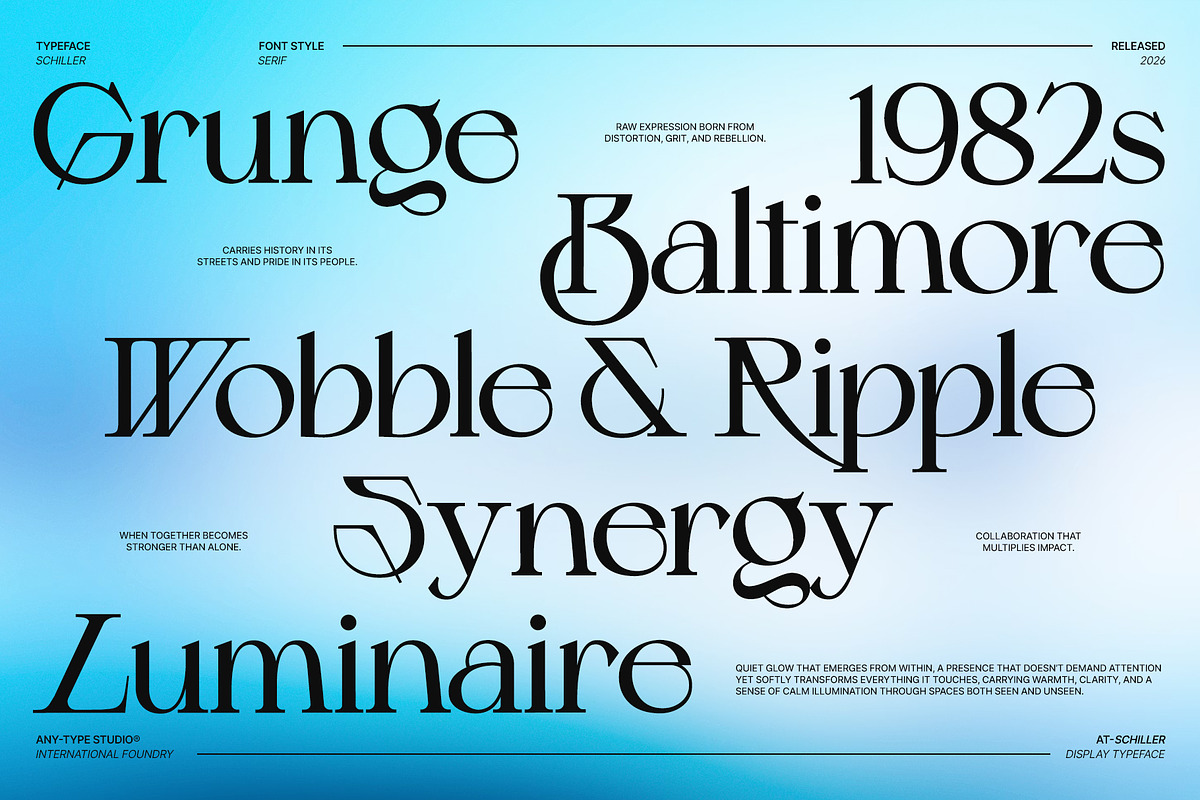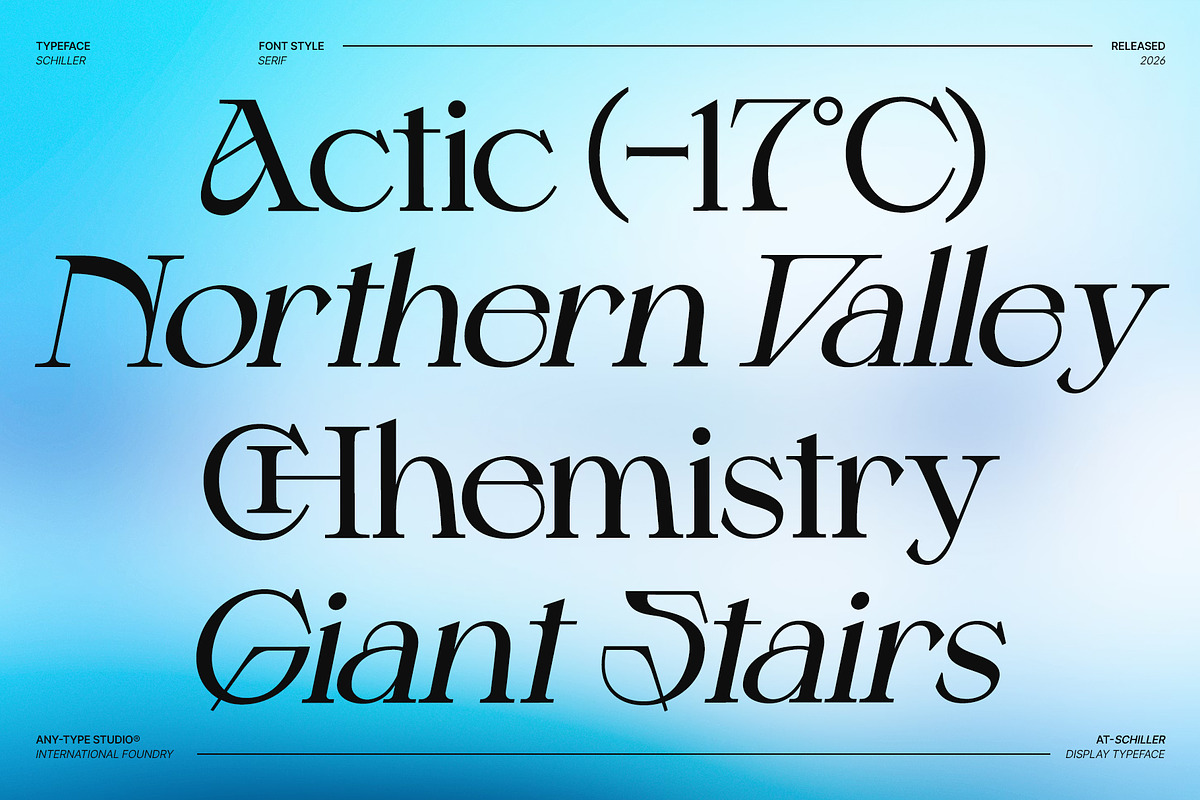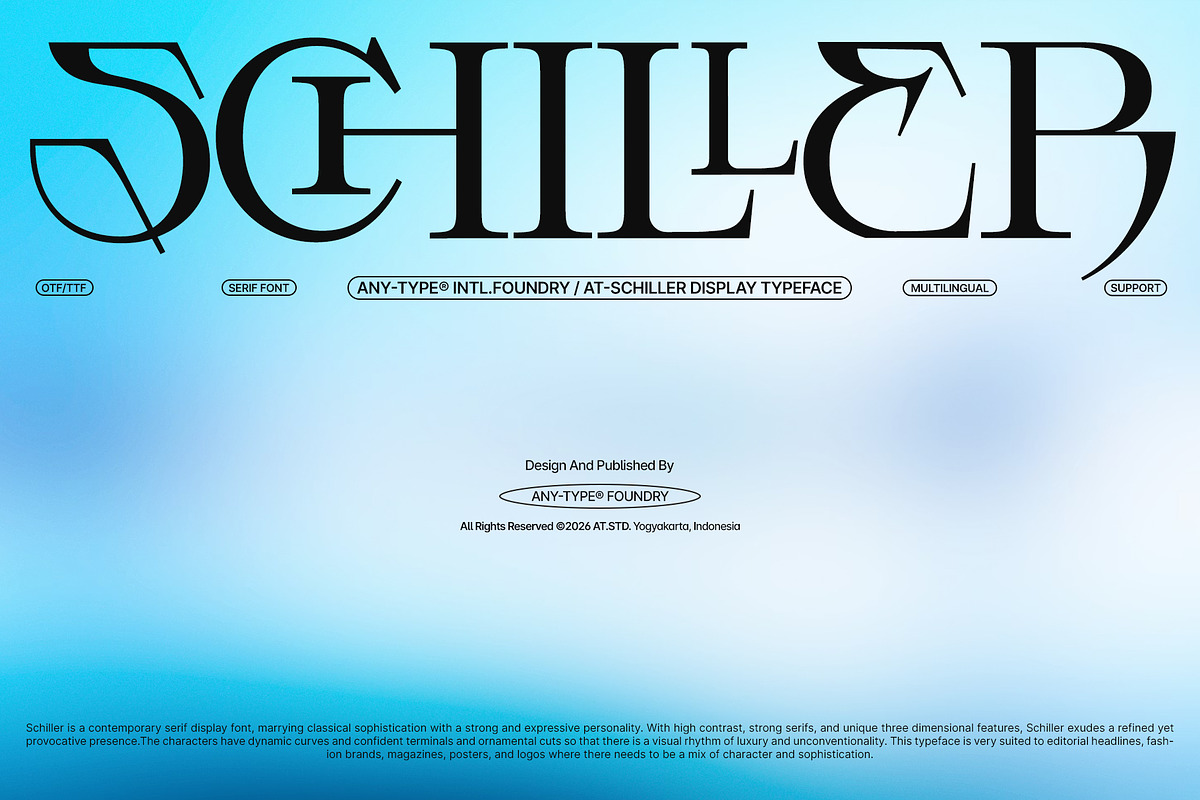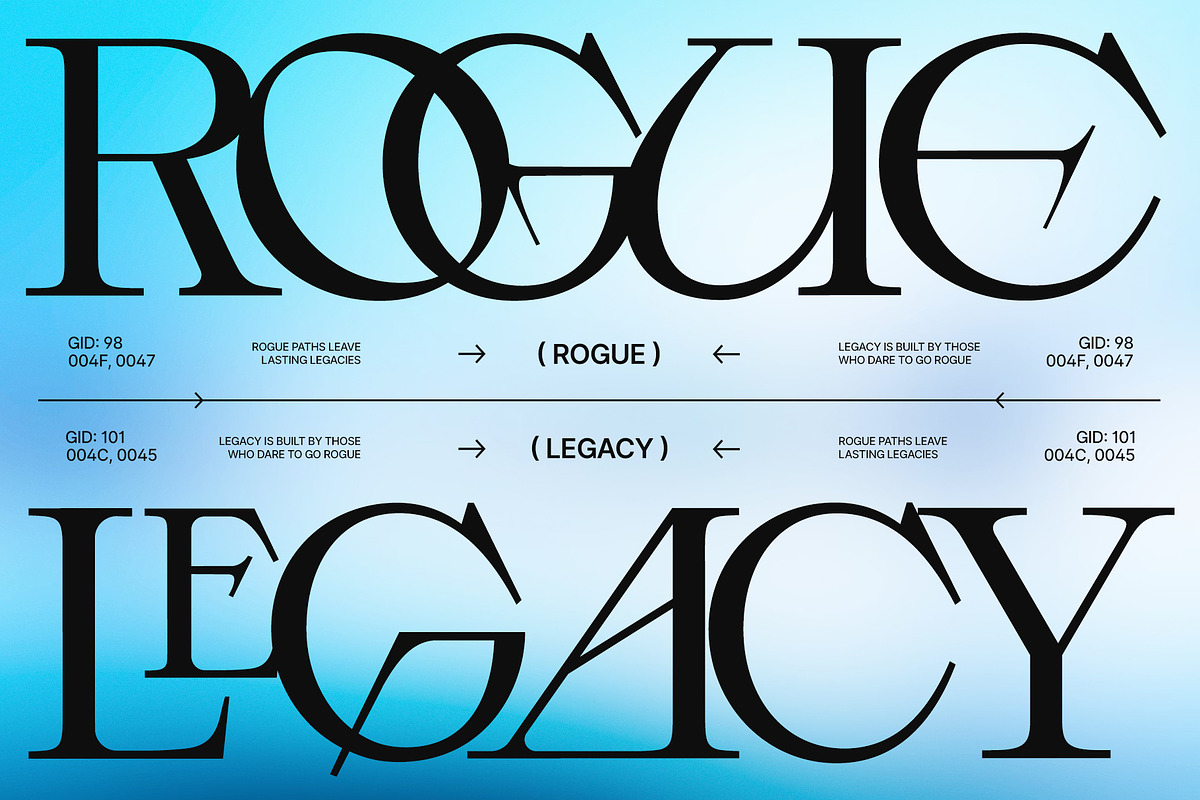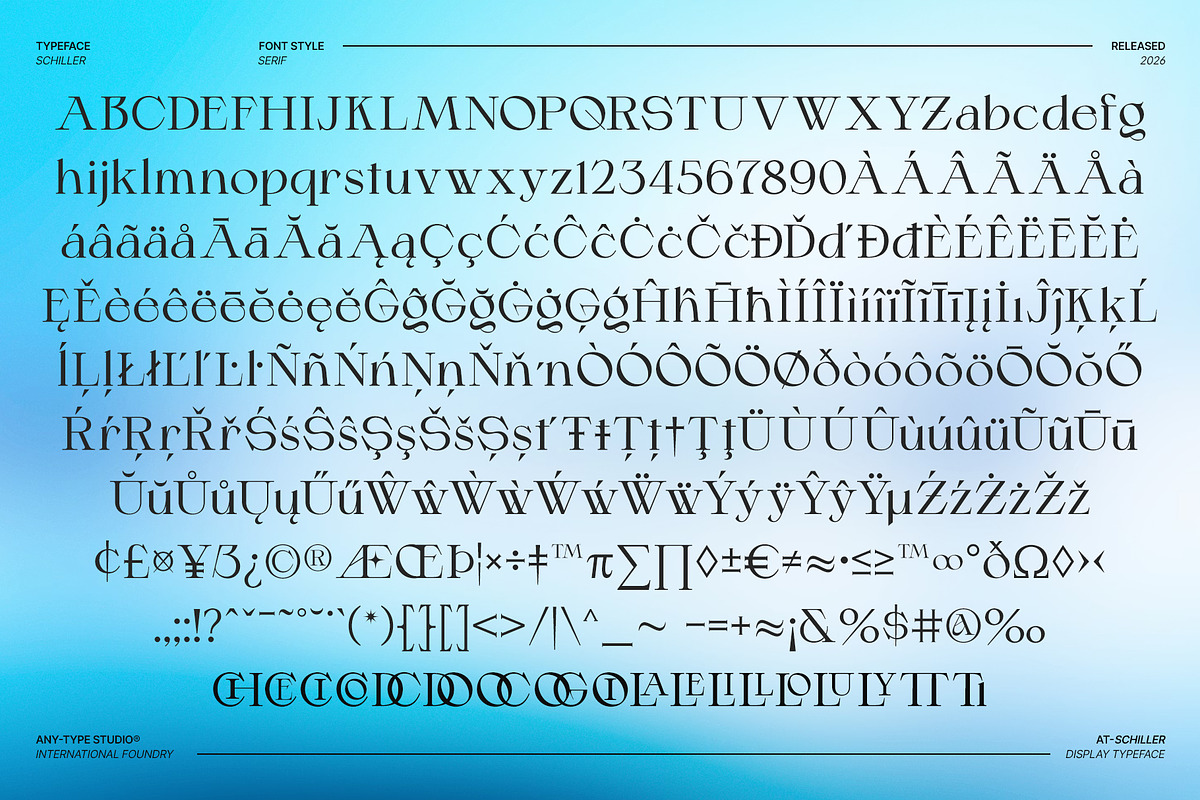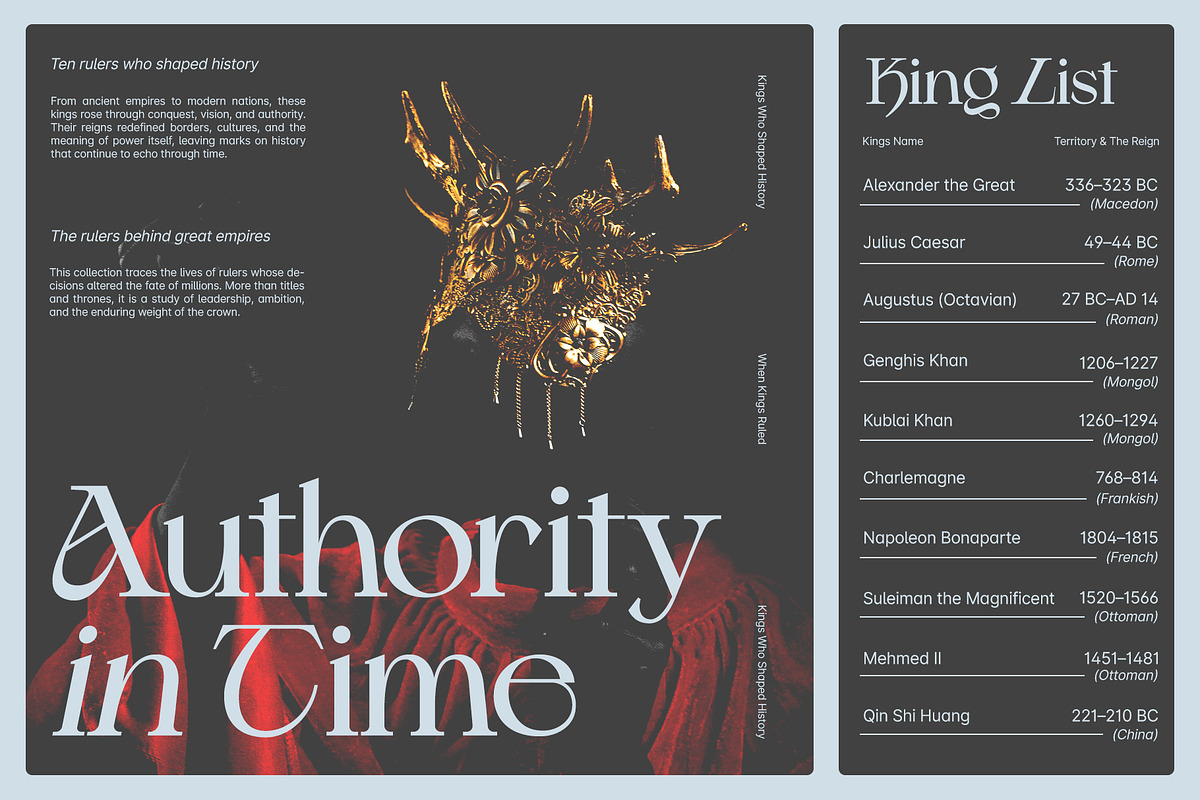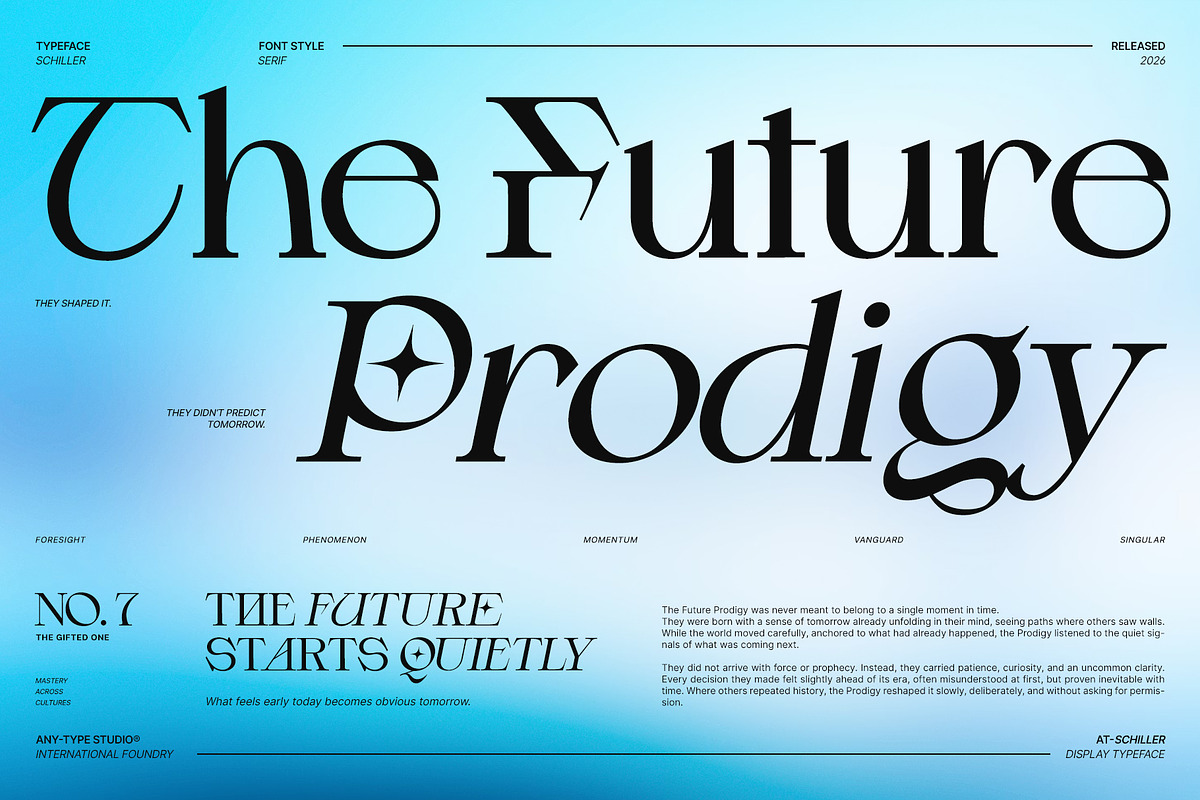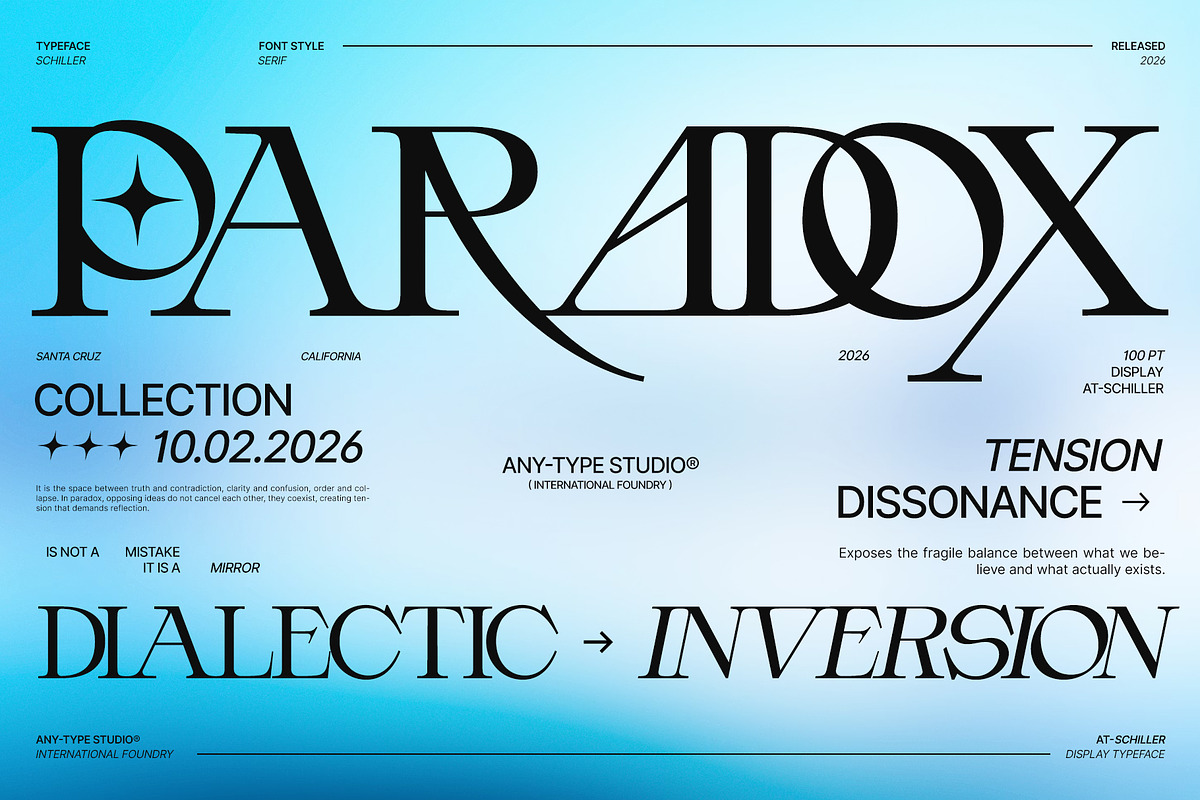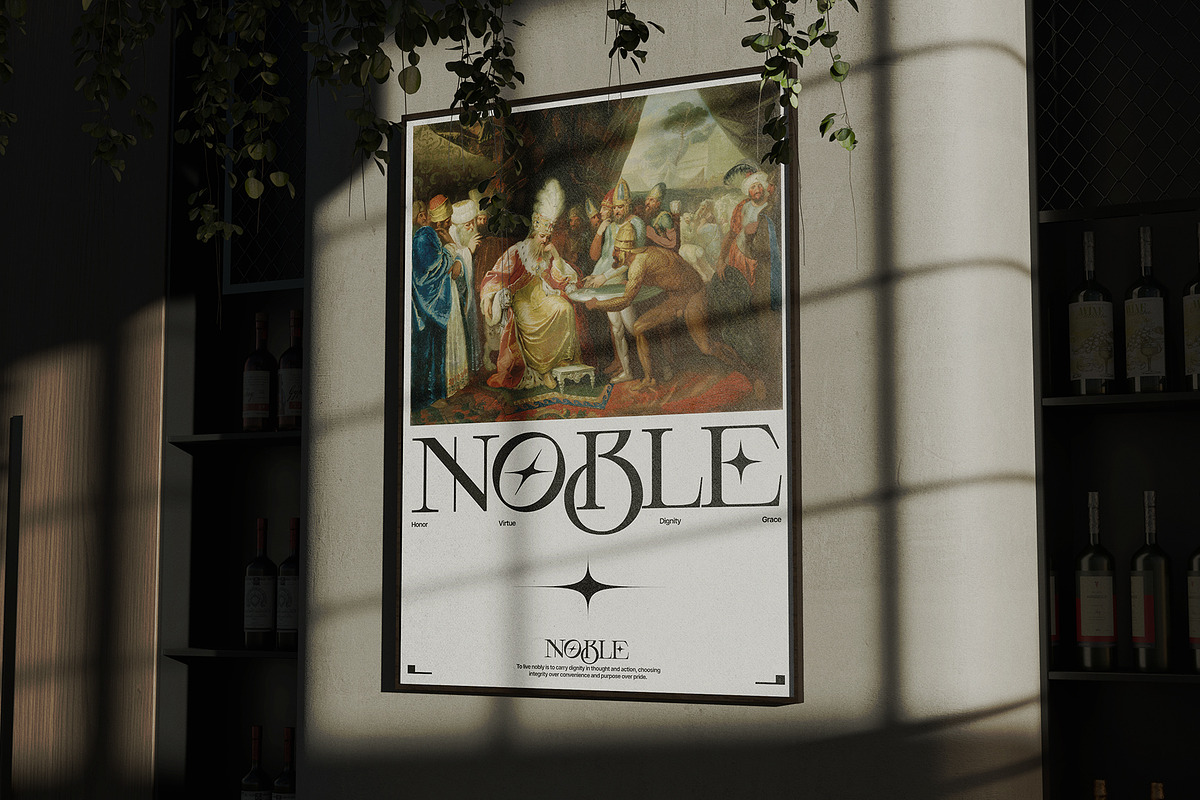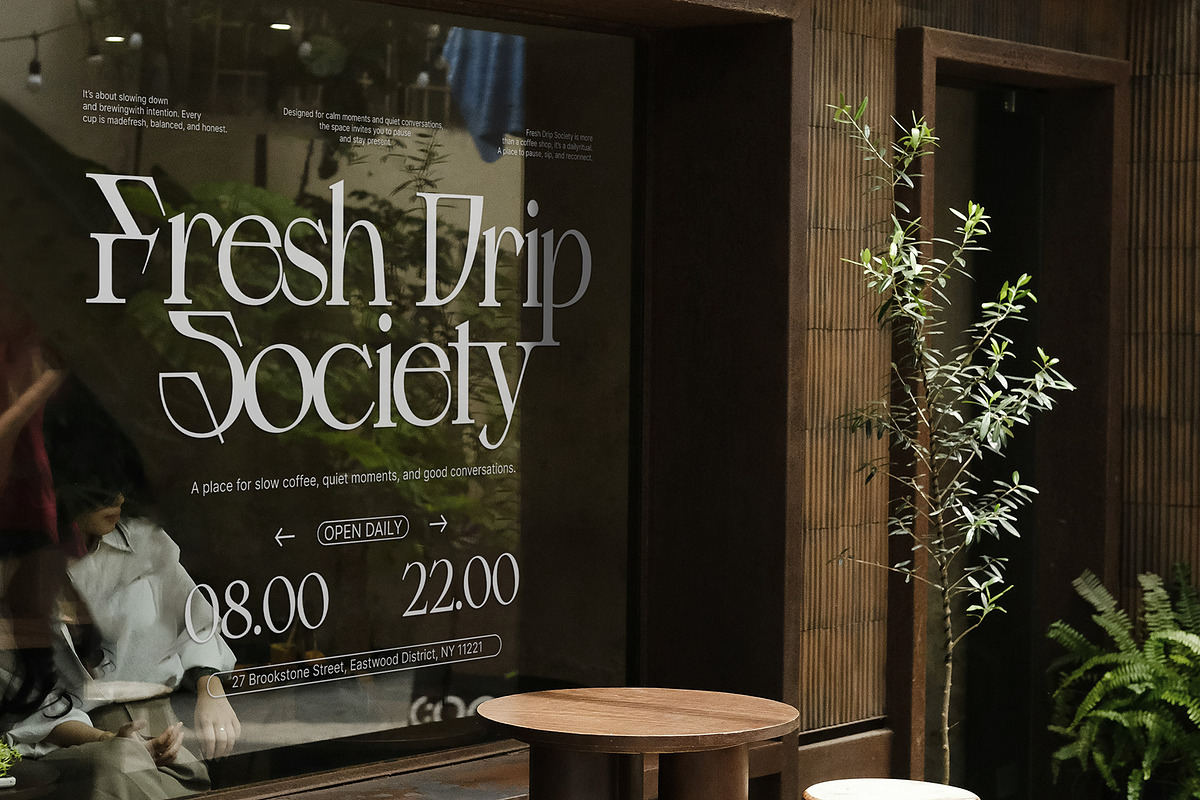
Schiller - Contemporary Serif
Schiller – Contemporary Serif Display Typeface
Schiller is a contemporary serif display typeface that blends classical elegance with bold, expressive character. Designed with high contrast strokes, strong sculptural serifs, and distinctive ornamental cuts, Schiller delivers a refined yet provocative visual presence.
Inspired by modern editorial design and luxury branding, this typeface features dynamic curves and confident terminals that create a striking rhythm across headlines and large-scale typography. Its unique letterforms bring a subtle three-dimensional feel, making every word feel intentional, premium, and unforgettable.
Schiller is built to stand out where personality matters most—perfect for designers who want to communicate sophistication with an edge.
- Editorial headlines & magazine layouts
- Luxury, fashion & beauty branding
- Posters, album covers & advertising
- Logos & high-end visual identities
- Social media graphics & campaign visuals
- High-contrast serif display design
- Strong, expressive letterforms
- Elegant curves with ornamental details
Whether you’re crafting a bold editorial statement or elevating a premium brand identity, Schiller brings confidence, class, and contemporary sophistication to your typography.